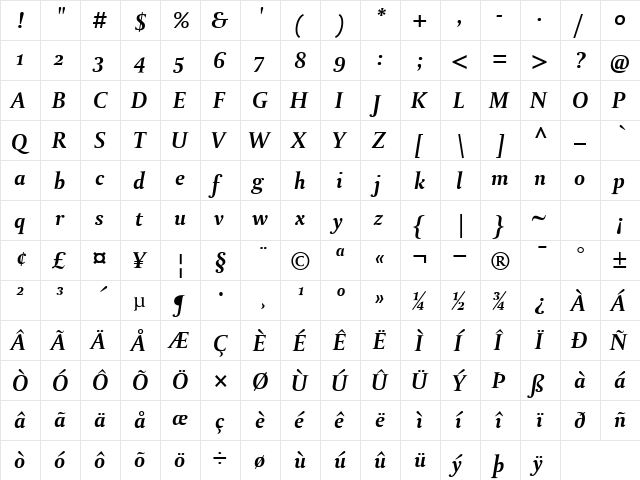
Paradox Dtl St Bold Italic Regular Font Preview
Design Context for Paradox Dtl St Bold Italic Typeface
Paradox Dtl St Bold Italic is a composed and adaptable typeface that performs quietly and consistently across a wide range of design contexts. The slanted form adds forward momentum and visual energy. The heavy weight commands attention and anchors typographic hierarchies.
Pro Tip: Try Paradox Dtl St Bold Italic for annotation and caption copy alongside an upright companion — the contrast in angle creates a dynamic but ordered typographic system.